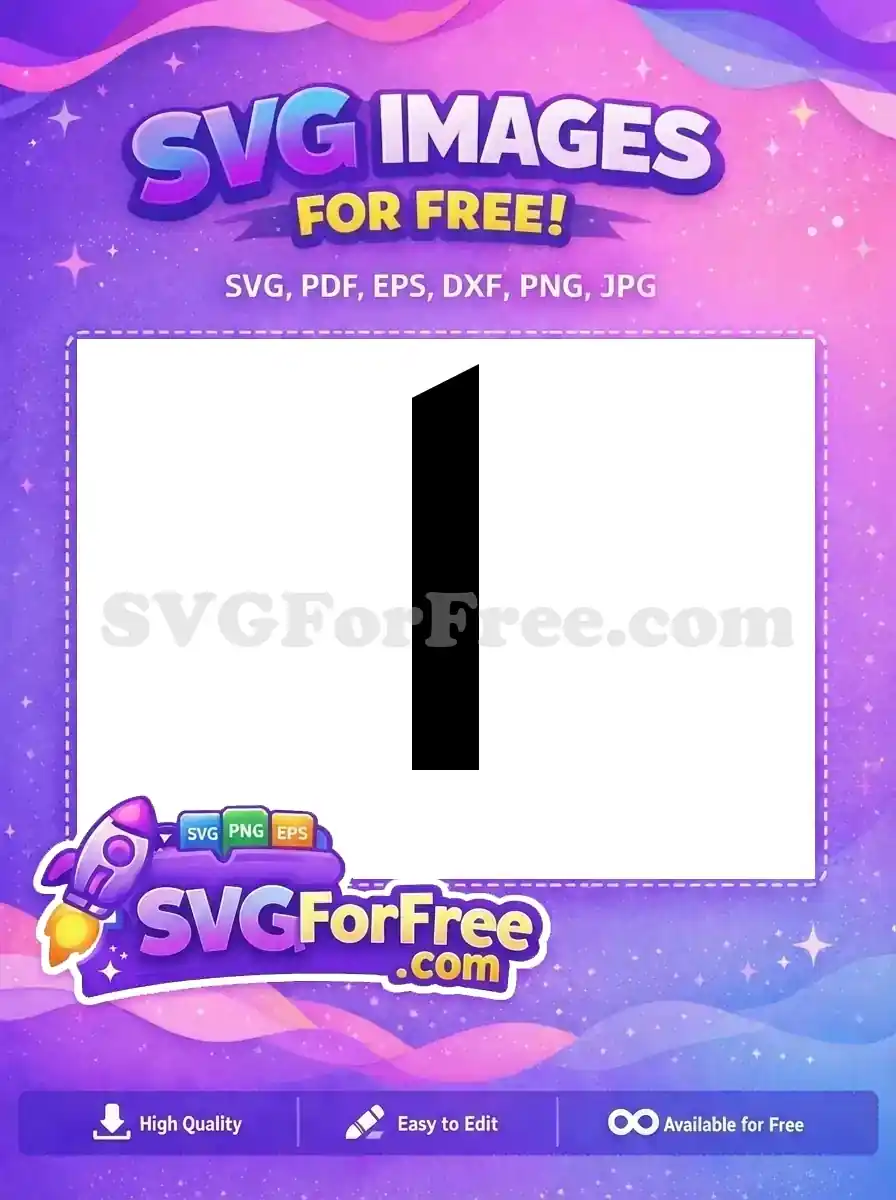
Free Modern Font Free Letter 1 Initial Free SVG – Instant Download
Tall, sharp letter I or l in wizard style, free vector.
Free Modern Font Free Letter 1 Initial Free SVG